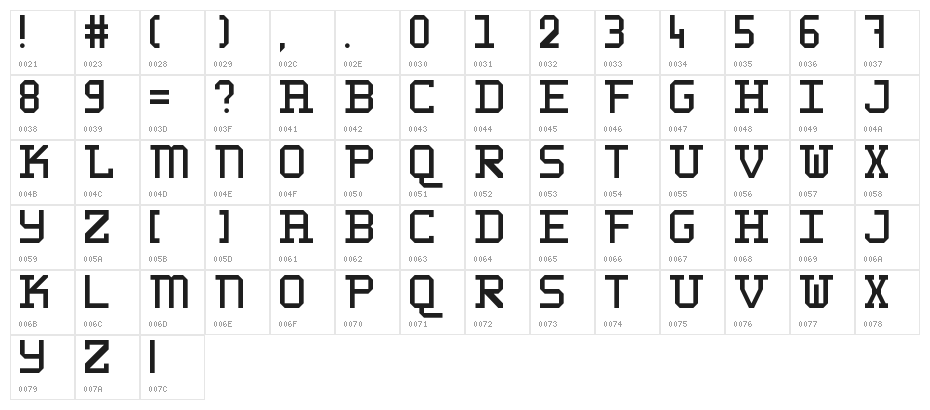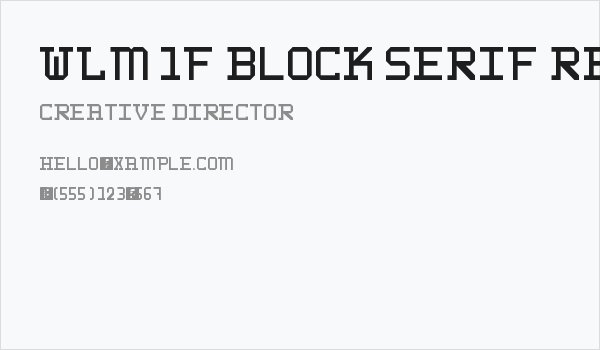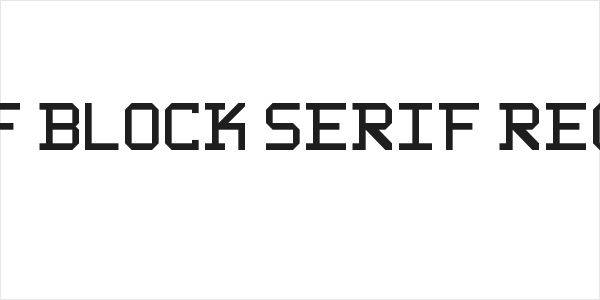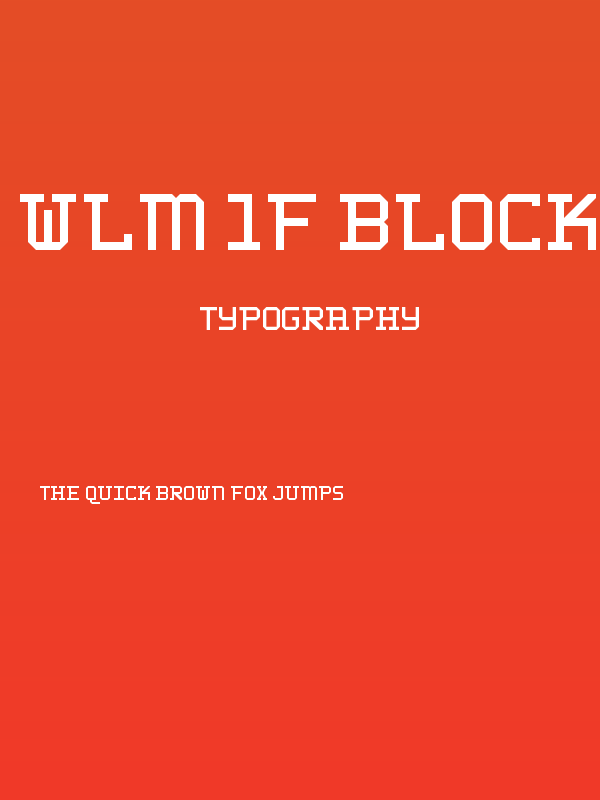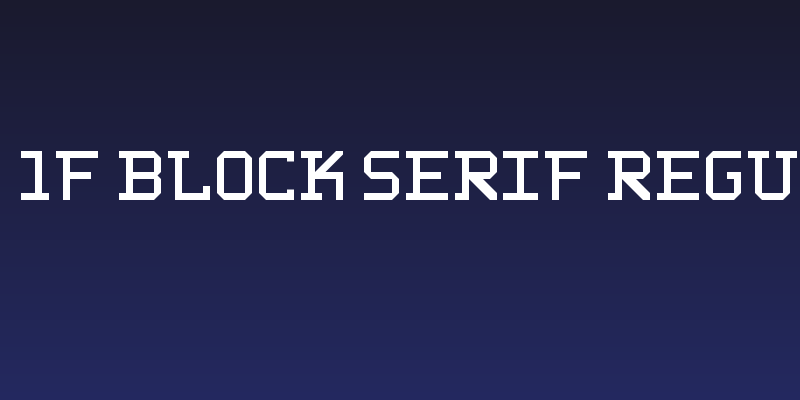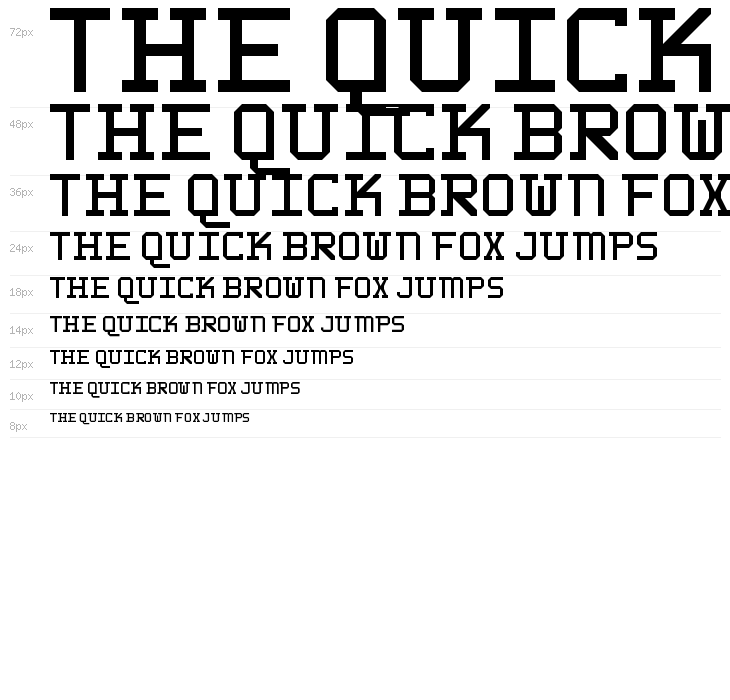
WLM 1F Block Serif Regular Font
WLM 1F Block Serif Regular Description
This font features a bold, geometric design with strong, block-like serifs. The characters are uniformly structured, providing a sense of stability and strength. The uppercase letters are particularly striking, with their tall, angular forms and consistent line thickness. The numerals follow the same robust style, ensuring clarity and readability. Special characters are designed to match the overall aesthetic, maintaining the font's cohesive appearance. This font is ideal for projects that require a bold, impactful statement.